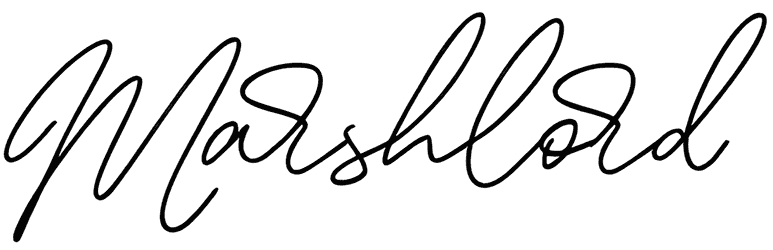
Marshlord Font
Need a sweet, warm touch to spark the interest of your audience and promote your context simultaneously? Well, the Marshlord can do it. As a thank you font, with no number support, comes with an interconnection that makes it problematic to read.
Marshlord font is simply put into your imaginative writing designs, whether greeting cards, comic books, invitations, posters, or even apparel, to give them a friendly effect.